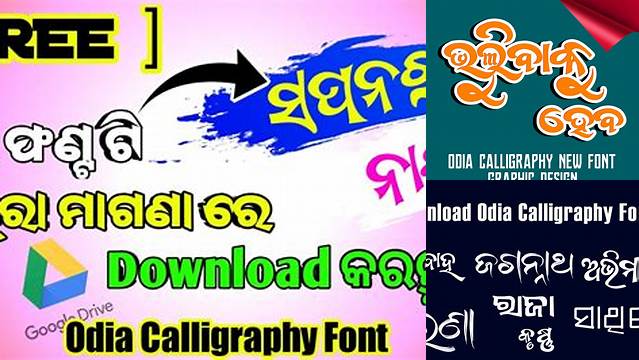
Hey guys! Are you looking to spice up your designs with some stylish Odia calligraphy fonts? Well, you've come to the right place! In this article, we're diving deep into the world of Odia calligraphy, exploring where you can find amazing fonts for free download, and how to use them effectively in Pixellab and PDF documents. Whether you're a seasoned designer or just starting out, there's something here for everyone. Let’s get started and make your projects shine with beautiful Odia script!
1. Understanding the Beauty of Odia Calligraphy
Odia calligraphy, the art of beautiful writing in the Odia script, is rich with history and cultural significance. The elegant curves and unique letterforms of Odia script lend a distinct charm to any design. Understanding the nuances of this art form is the first step in appreciating and effectively utilizing Odia calligraphy fonts. Think about it, the way the strokes flow, the way the letters connect – it all tells a story. By grasping the essence of Odia calligraphy, you can make more informed choices about which fonts to use and how to use them in your projects. For example, a font with thicker strokes might be perfect for a bold headline, while a more delicate font could be ideal for body text or invitations.
The beauty of Odia calligraphy lies not just in its aesthetic appeal but also in its ability to connect with the cultural heritage of Odisha. Each character is a piece of art, reflecting centuries of artistic evolution. When you choose to use a stylish Odia calligraphy font, you're not just adding text; you're adding a piece of history and tradition to your work. This is especially important if you're designing materials for cultural events, religious ceremonies, or anything that celebrates Odia culture. Imagine creating a wedding invitation with a gorgeous Odia calligraphy font – it instantly adds a touch of elegance and authenticity. So, taking the time to appreciate the artistry behind Odia calligraphy will undoubtedly enhance your design projects. It's about more than just fonts; it's about embracing a beautiful art form and sharing it with the world.
4. Embedding Odia Fonts in PDF Documents
Creating PDF documents with stylish Odia calligraphy fonts adds a professional and elegant touch, but there's a crucial step you need to take: embedding the fonts. Embedding ensures that your fonts display correctly on any device, regardless of whether the recipient has the font installed. Think of it as packing all the necessary ingredients into a care package – you want to make sure everything is there when it arrives! If you don't embed the fonts, your carefully chosen Odia calligraphy might be replaced with a generic font, which can totally ruin the aesthetic you were going for.
So, how do you embed fonts in a PDF? Well, the process varies slightly depending on the software you're using, but generally, it involves checking an “embed fonts” option when you save or export your document as a PDF. Most professional software like Adobe Acrobat or even online PDF converters offer this feature. When you embed a font, you're essentially including a copy of the font file within the PDF itself. This means that anyone who opens the document will see the Odia calligraphy as you intended, without any surprises. It's a simple step, but it makes a huge difference in maintaining the visual integrity of your work. Whether you're creating a business report, a wedding invitation, or an e-book, embedding your fonts is a must. It's the best way to ensure that your stylish Odia calligraphy fonts look beautiful and consistent, no matter where they're viewed.
5. Exploring Different Styles of Odia Calligraphy
Odia calligraphy isn't just one thing; it's a diverse art form with various styles, each bringing its own unique flair. Guys, exploring these different styles can really expand your design horizons and allow you to choose the perfect font for any project. Think of it like exploring different genres of music – you wouldn't use the same tune for a rock concert and a classical recital, right? Similarly, the style of Odia calligraphy you choose should align with the tone and purpose of your design.
Some styles are more traditional, featuring intricate letterforms and a classic feel. These are perfect for formal invitations, religious texts, or anything that calls for a touch of heritage and elegance. Then there are more modern interpretations, which might incorporate bolder strokes, cleaner lines, or even a touch of playfulness. These styles can be fantastic for branding materials, social media graphics, or anything that needs to feel fresh and contemporary. You might even find styles that blend traditional elements with modern design principles, creating a unique and eye-catching look. The key is to experiment and see what resonates with you and your project. Maybe you'll fall in love with a flowing, cursive style, or perhaps you'll be drawn to a more structured and geometric font. Whatever your preference, understanding the variety within Odia calligraphy will empower you to make informed choices and create designs that truly stand out. So, dive into the world of Odia calligraphy styles, and let your creativity flow!
6. Tips for Choosing the Right Odia Font for Your Project
Choosing the right stylish Odia calligraphy font for your project is like picking the perfect outfit for an occasion – it needs to fit the context, reflect the mood, and make the right impression. You wouldn't wear a tuxedo to the beach, and you wouldn't use a playful, whimsical font for a serious business report, right? So, how do you make sure you're selecting the best Odia font for the job? Well, let’s break it down into a few key considerations. First off, think about the overall tone and message of your project. Is it formal and elegant? Or is it more casual and fun? The font you choose should align with this tone. A classic, ornate calligraphy font might be perfect for a wedding invitation, while a cleaner, more modern font might be better suited for a website headline.
Next, consider the readability of the font. While stylish Odia calligraphy fonts are beautiful, some can be harder to read than others, especially in smaller sizes. If your text is going to be displayed in a large format, like a poster or a banner, you might have more leeway to choose a decorative font. But if it's going to be used in body text or on a smaller screen, you'll want to prioritize readability. Look for fonts with clear letterforms and adequate spacing. Another thing to keep in mind is the cultural context. If you're designing something that's deeply rooted in Odia culture, choosing a traditional Odia calligraphy font can add a sense of authenticity and respect. On the other hand, if you're aiming for a more contemporary feel, you might opt for a modern interpretation of Odia script. Ultimately, the best way to choose the right font is to experiment and see what looks good. Try out different fonts, play with sizes and colors, and get feedback from others. With a little bit of effort, you'll find the perfect Odia font to elevate your project!
7. Installing Odia Fonts on Your Computer
Okay, guys, so you've downloaded some amazing stylish Odia calligraphy fonts, but now what? Well, you need to install them on your computer so you can actually use them in your design software. Don’t worry, it's a pretty straightforward process, whether you're on Windows or macOS. Think of it like adding a new tool to your creative toolkit – once it's installed, you can use it whenever you need it! The basic idea is the same for both operating systems: you'll need to locate the font files (usually .ttf or .otf files) that you downloaded, and then move them into your system's font folder.
On Windows, you can typically right-click on the font file and select “Install.” This will automatically add the font to your system. Alternatively, you can open the Control Panel, go to “Fonts,” and drag and drop the font files into this folder. On macOS, you can double-click the font file, and it will open in Font Book, the built-in font management application. From there, you can click “Install Font,” and it'll be added to your system. Once the font is installed, it should be available in all your applications, from word processors to graphic design software. You might need to restart the application for the font to appear, but usually, it's ready to go right away. Now you can start experimenting with your new stylish Odia calligraphy fonts in all your projects! It’s like unlocking a whole new level of creativity. So, get those fonts installed, and let the design magic begin!
8. Creating Stunning Designs with Odia Calligraphy
Alright, guys, you've got your stylish Odia calligraphy fonts installed, and you're ready to roll! But how do you actually use them to create stunning designs? Well, it's all about understanding how to effectively incorporate these beautiful fonts into your projects. Think of Odia calligraphy as a powerful design element – it can add a touch of elegance, tradition, and cultural richness to anything you create. But like any powerful tool, it needs to be used thoughtfully.
One key thing to consider is the context of your design. What are you trying to communicate? What's the overall mood and message? The font you choose should align with these elements. For example, if you're designing a wedding invitation, a delicate and ornate Odia calligraphy font can add a touch of romance and sophistication. On the other hand, if you're creating a poster for a cultural event, a bolder and more contemporary font might be more impactful. Another important factor is the layout and composition of your design. Where are you going to place the Odia calligraphy? How will it interact with other design elements, like images and colors? Experiment with different placements and arrangements to see what works best. You might want to use Odia calligraphy for headlines, subheadings, or even as a decorative element within your design. Just remember to keep things balanced and harmonious. And don't be afraid to play around with different font sizes, weights, and colors to create visual interest. With a little creativity and experimentation, you can use stylish Odia calligraphy fonts to transform your designs from ordinary to extraordinary. So, go ahead, let your imagination run wild, and create something truly stunning!
9. Licensing Considerations for Free Odia Fonts
Okay, guys, let's talk about something super important: font licensing. You've found some amazing stylish Odia calligraphy fonts for free download, which is awesome! But before you start using them in all your projects, it's crucial to understand the licensing terms. Think of it like reading the fine print on a contract – it's not the most exciting part, but it's essential to make sure you're using the fonts legally and ethically. Font licenses basically outline what you can and can't do with a particular font. They specify things like whether you can use the font for commercial projects, whether you can modify it, and whether you need to give credit to the font designer.
Free fonts often come with different types of licenses. Some might be completely free for both personal and commercial use, meaning you can use them in any project without any restrictions. Others might have certain limitations, such as requiring you to give credit to the designer or prohibiting you from using the font in certain types of projects. It's really important to read the license agreement carefully before using a font. This information is usually included in a text file along with the font files, or it might be available on the website where you downloaded the font. If you're not sure about the terms of a license, it's always best to err on the side of caution and contact the font designer or the website where you found the font for clarification. Using a font without the proper license can lead to legal issues, so it's definitely worth taking the time to understand the rules. By being mindful of font licensing, you can ensure that you're using stylish Odia calligraphy fonts responsibly and respectfully. It’s all about supporting the creators and ensuring a fair and sustainable design ecosystem!
10. Combining Odia Fonts with Other Font Styles
One of the coolest things you can do with stylish Odia calligraphy fonts is to combine them with other font styles! Guys, this is where you can really get creative and create some visually stunning designs. Think of it like mixing different ingredients in a recipe – you want to balance the flavors and textures to create something delicious. The same goes for fonts: combining different styles can add depth, contrast, and visual interest to your work.
The key is to choose fonts that complement each other. For example, you might pair a classic Odia calligraphy font with a clean, modern sans-serif font. This creates a nice balance between tradition and modernity. Or, you could combine a bold, decorative Odia calligraphy font with a simple, readable serif font for body text. This ensures that your headlines stand out while your text remains easy to read. When choosing fonts to combine, think about the overall mood and message of your design. Do you want to create a feeling of elegance and sophistication? Or are you going for something more playful and casual? The fonts you choose should reflect this. It can also be helpful to consider the visual hierarchy of your design. Which elements do you want to emphasize? Use different font styles and sizes to guide the viewer's eye and create a clear flow of information. And don't be afraid to experiment! Try out different combinations and see what works best. You might be surprised at the unexpected pairings that you discover. Ultimately, the goal is to create a harmonious and visually appealing design that effectively communicates your message. So, have fun mixing and matching stylish Odia calligraphy fonts with other styles, and watch your designs come to life!